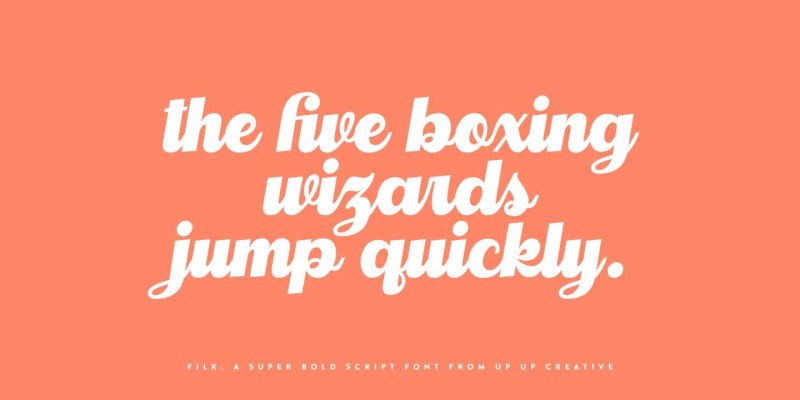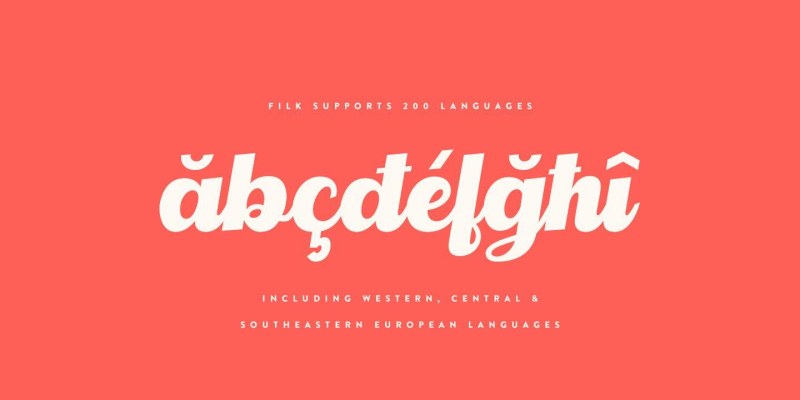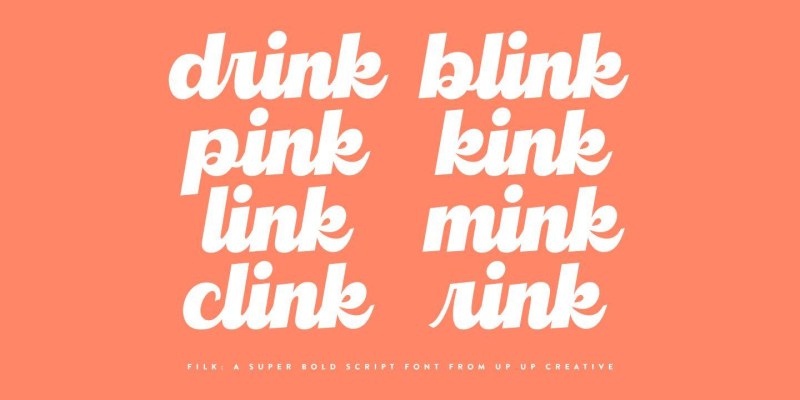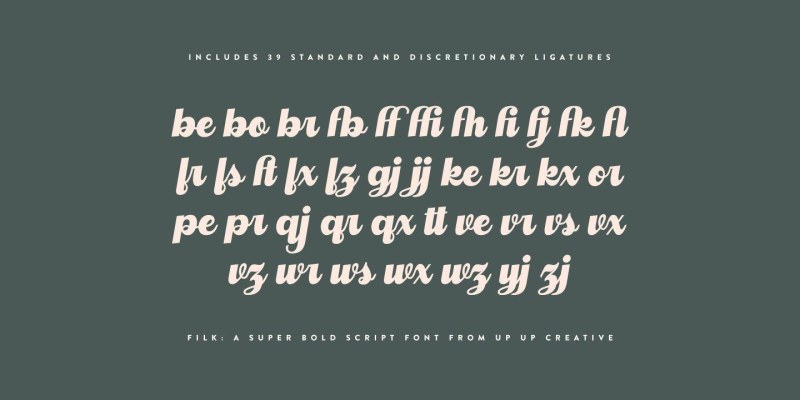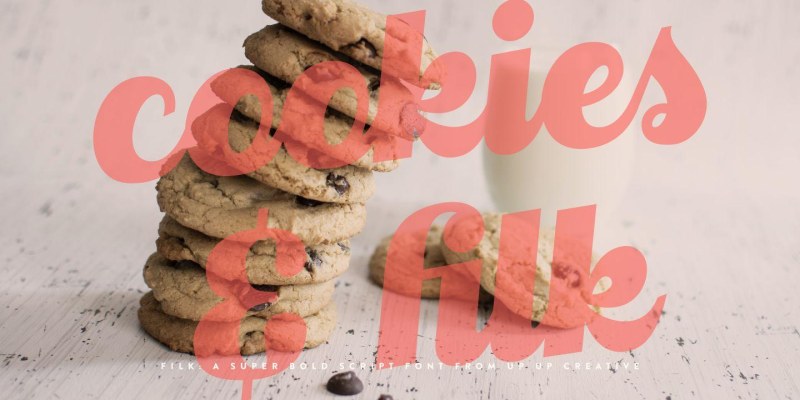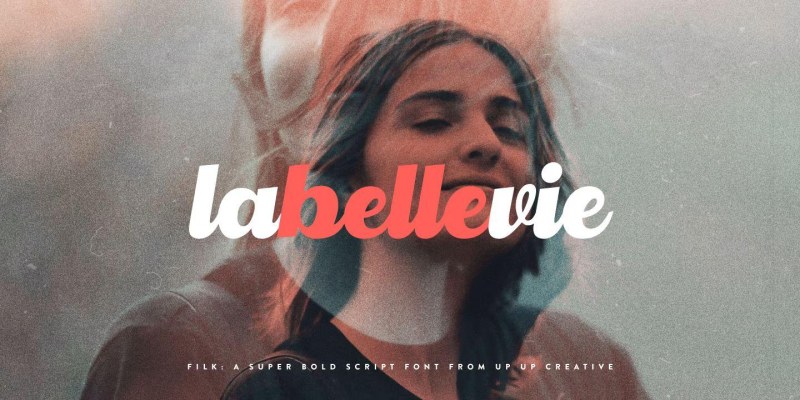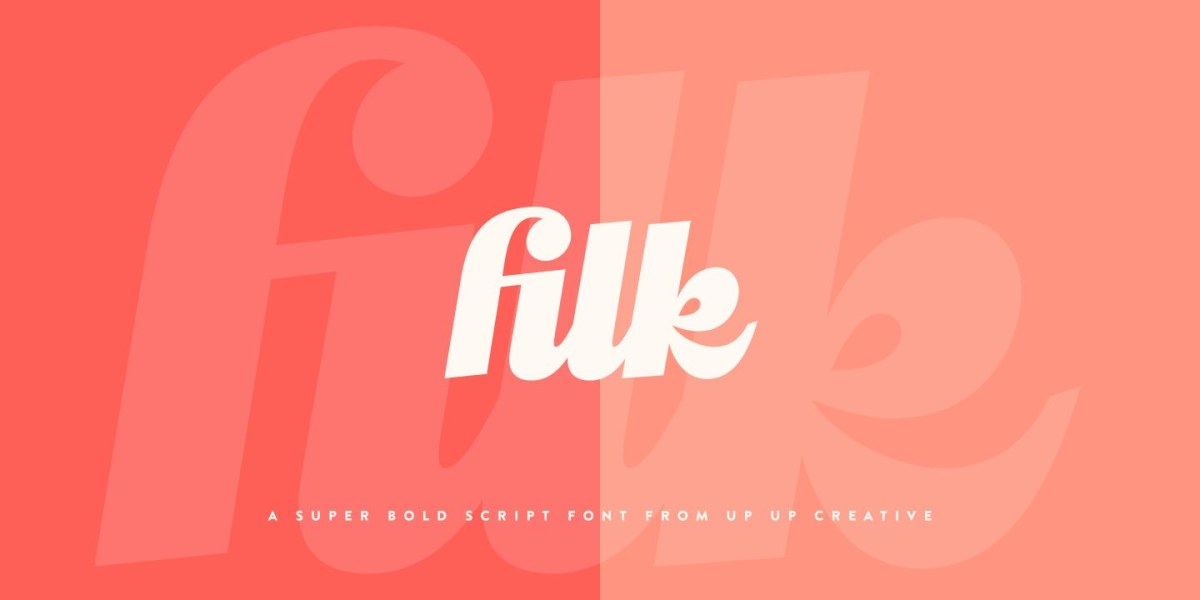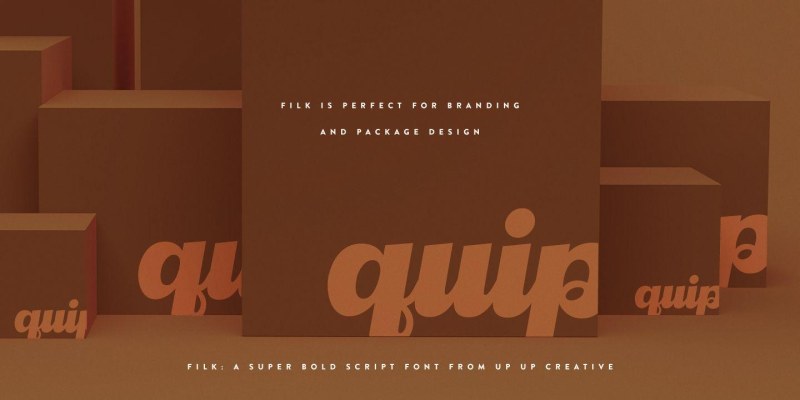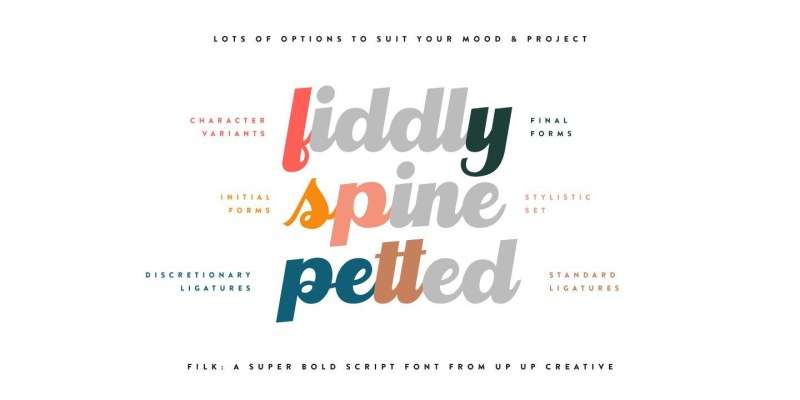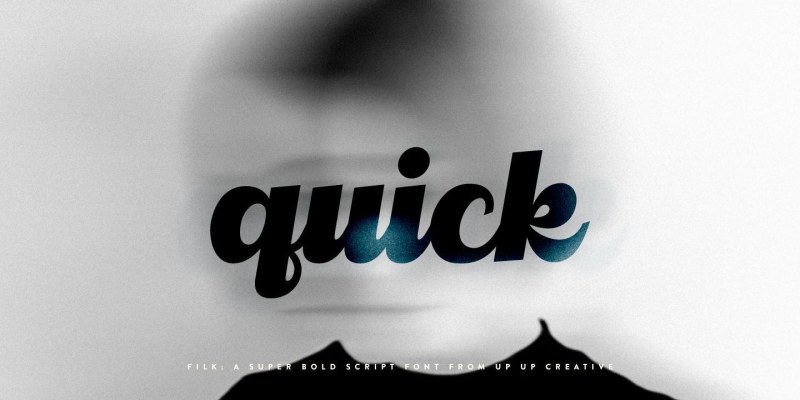
Filk Font
Filk is a super bold, all-lowercase script font with gorgeous curves and thick downstrokes. Filk is perfect for branding and editorial projects and dreams of being used…
Filk is a super bold, all-lowercase script font with gorgeous curves and thick downstrokes. Filk is perfect for branding and editorial projects and dreams of being used on billboards, in magazines, and in movie titles. Filk includes approximately 540 glyphs, including 39 standard and discretionary ligatures. OpenType features include a a stylistic set, a bunch of character variants, initial and final forms for letters that need them, and multilingual support (including multiple currency symbols). The OpenType features can be very easily accessed by using OpenType-savvy programs such as Adobe Illustrator and Adobe InDesign.
Where Filk Font works best
Filk Font brings a personal, handwritten warmth to invitations, menus and place cards.
Craft brands — coffee, cosmetics, bakery — use scripts like Filk Font for signature-style logos and labels.
Pair Filk Font with a plain sans for quotes, stories and Pinterest pins that feel handmade.
What is Filk Font good for?
Filk Font is a Script And Handwritten typeface tagged Bold, Branding, Editorial, Poster. It works well for headlines, logos, posters, social media graphics and branding projects that need a distinctive script and handwritten look.